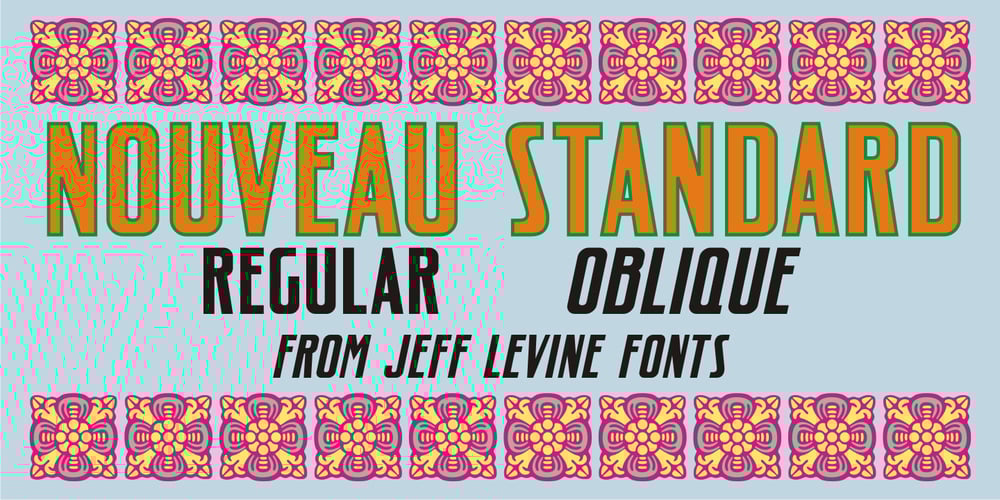
Nouveau Standard JNL
Nouveau Standard JNL Font Family was designed by Jeff Levine and published by Jeff Levine. Nouveau Standard JNL contains 2 styles and family package options. The hand lettering found on the cover of the 1912 sheet music for “Somebody Else is Getting It” featured a blockish Art Nouveau style with rounded corners and a very lurid title [although it likely had a more innocent meaning in those days than the casual observer might interpret today]. Now available as Nouveau Standard JNL, it is available in both regular and oblique versions.